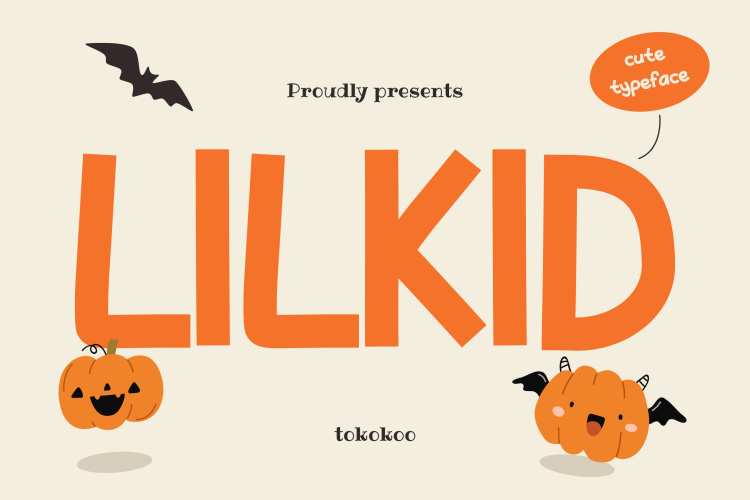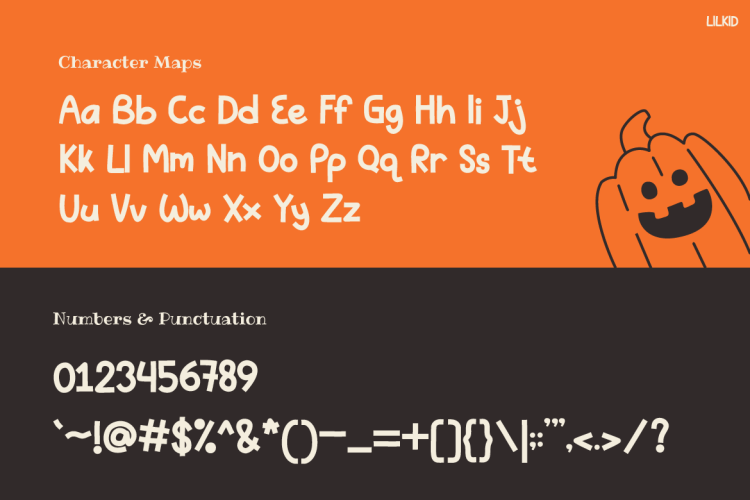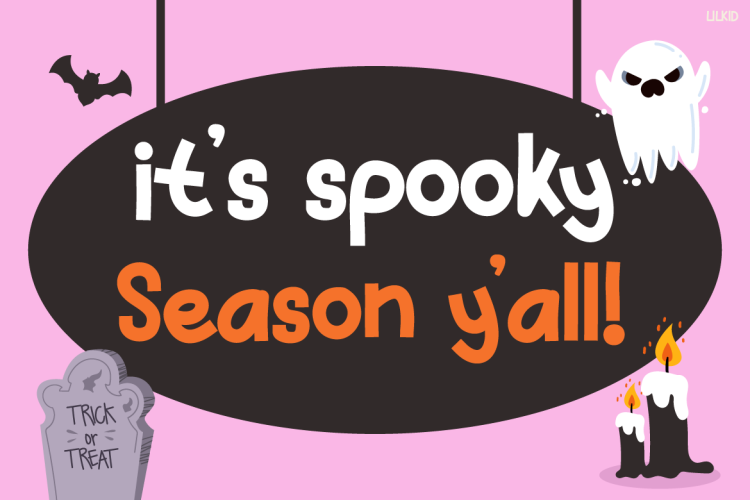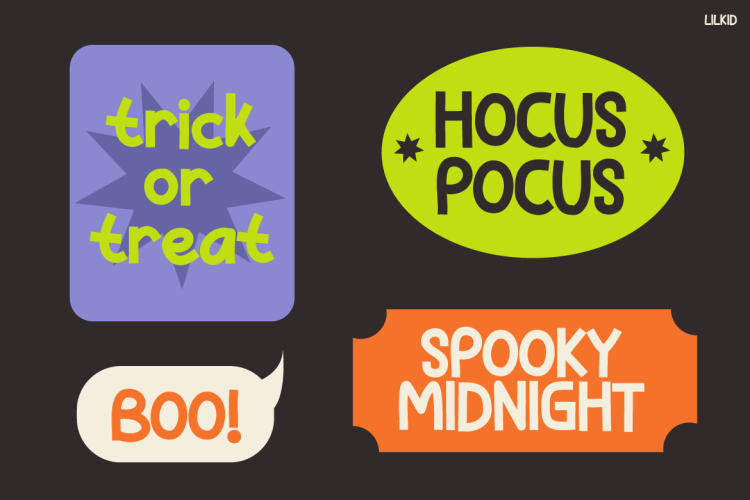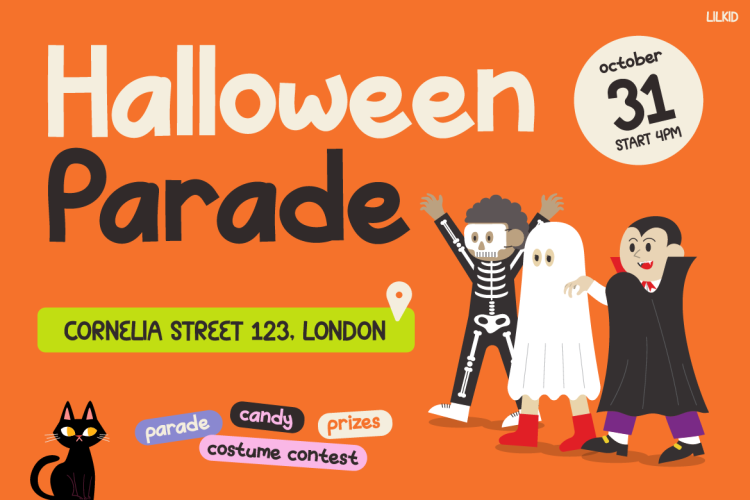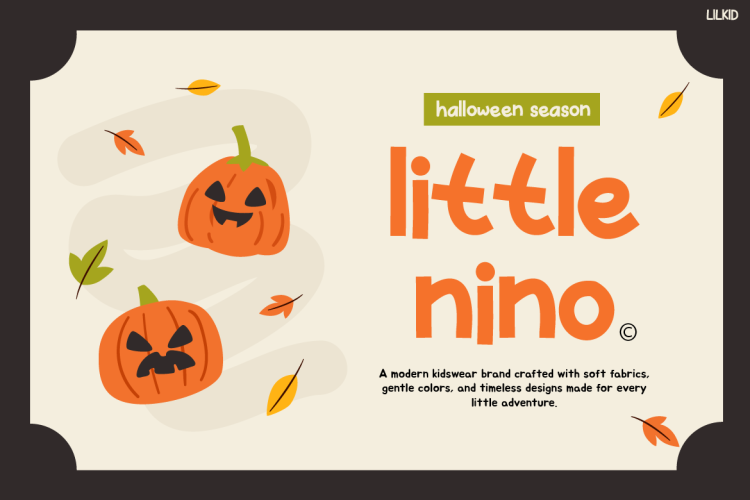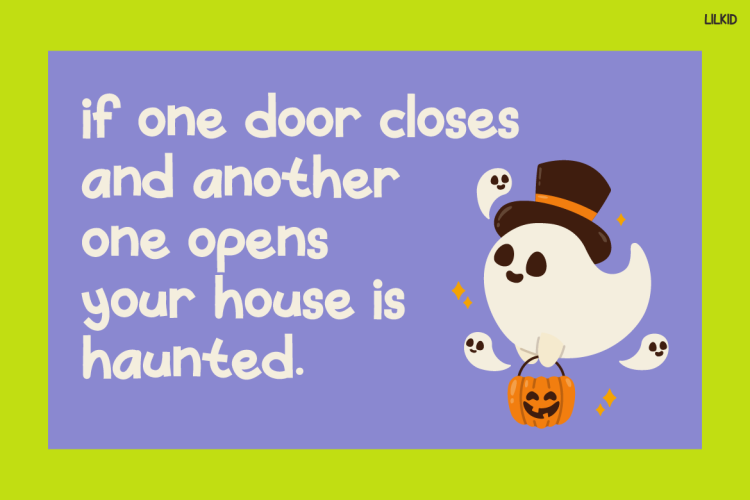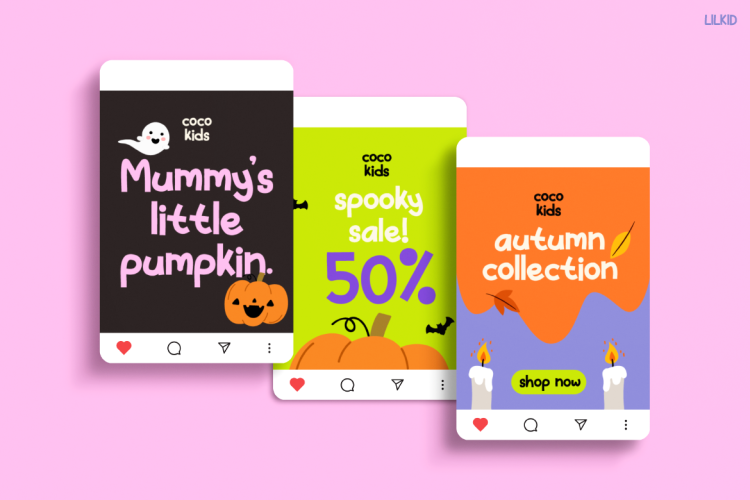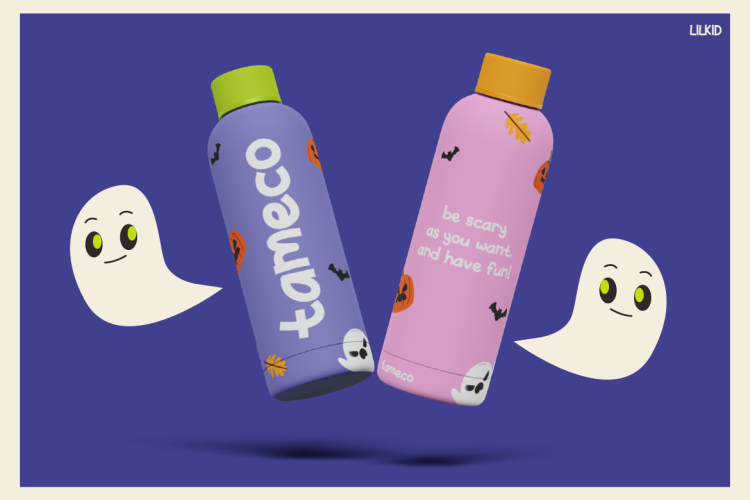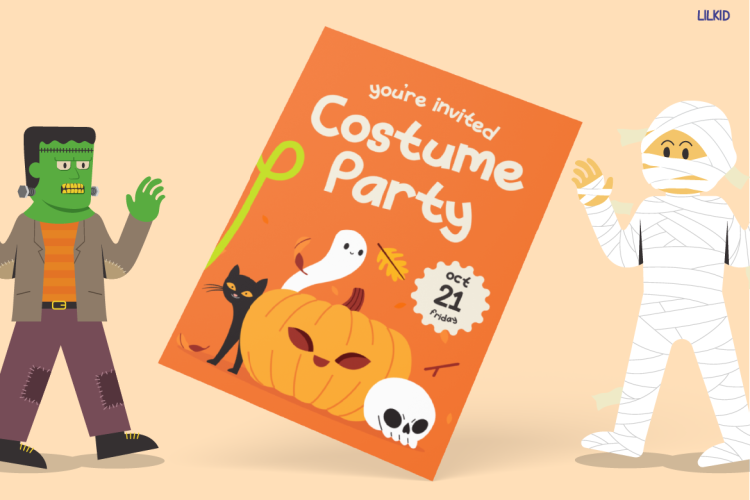
Kids Font LILKID โ Spooky Fun Meets Playful Creativity!
Kids Font LILKID is a cheerful and spooky typeface that captures the magic of Halloween through a childโs imagination. Each letter bounces with energy โ chunky, round, and full of charm. Moreover, the design feels friendly and alive, turning simple words into fun and exciting visuals.
This font combines bold lines with soft, rounded shapes, making it easy to read and enjoyable to use. Therefore, itโs perfect for playful projects that need a touch of Halloween spirit. Imagine happy pumpkins, cute ghosts, and smiling monsters all dancing on your screen โ thatโs exactly the mood LILKID brings to your designs.
From Halloween party invites to candy bag labels, it adds warmth and joy to any creative project. In addition, every curve feels hand-drawn, giving it a cozy and personal touch. Kids Font LILKID turns spooky into sweet, making your design feel fun instead of scary.
This adorable font is ideal for teachers, parents, crafters, and designers who love playful and creative projects. You can use it for classroom decorations, party posters, stickers, or social media posts. Besides, it works beautifully for childrenโs books, toy packaging, and DIY crafts.
If you run a small business or sell creative products, Kids Font LILKID helps your work stand out. Its joyful and friendly style attracts kids and families instantly. Furthermore, every letter spreads fun and positivity, making it perfect for Halloween collections and festive designs.
You can also use it for seasonal campaigns, autumn banners, or online shops. Thus, whatever your idea is, LILKID adds a friendly spark that keeps your audience smiling and engaged.
Bring the Magic to Your Designs!
Let your creativity glow with Kids Font LILKID! Itโs not just a font โ itโs a little world of fun waiting to be explored. With its playful look and Halloween charm, this typeface makes every project more exciting and joyful.
So, add a sprinkle of fun, a dash of pumpkin spice, and a big smile to your creations today. Kids Font LILKID will make your words jump off the page and into the hearts of everyone who sees them. In short, itโs the perfect font to turn your spooky ideas into something adorable and unforgettable.